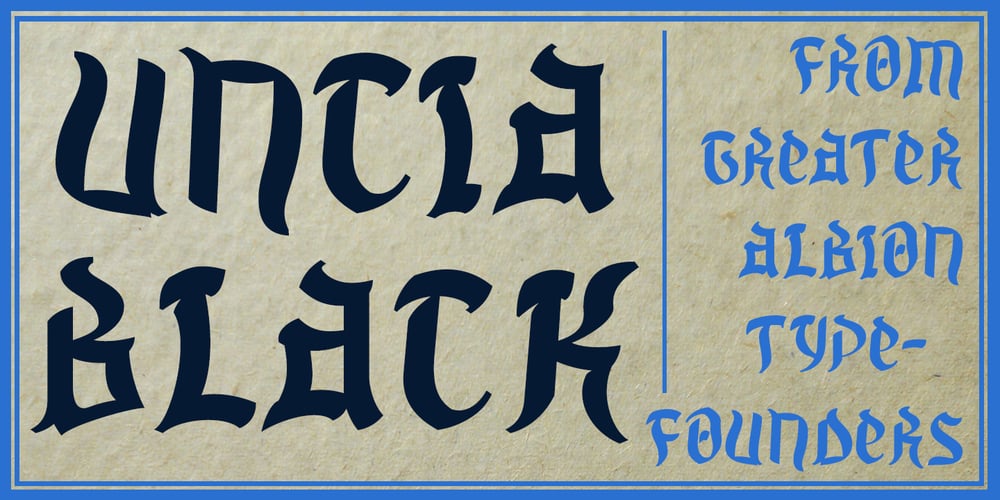
Uncia Black
Uncia Black font
Uncia Black Font Family was designed by Paul James Lloyd and published by Greater Albion Typefounders. Uncia Black contains 1 styles and family package options. Greater Albion Has been toying with thoughts of a “unicase” typeface for a while. On the other hand we’ve always wondered just what practical use they are. It is also a while since we’ve introduced a ‘handwritten’ design. Therefore, It struck us that one answer was something ‘hand-lettered’. These days many people do write in a sort of informal unicase don’t they? But, at the same time, we wanted it to have a little character. So here it is, a bit calligraphic, with a touch of black-letter and a cunning mix of upper- and lower-case forms Uncia Black!